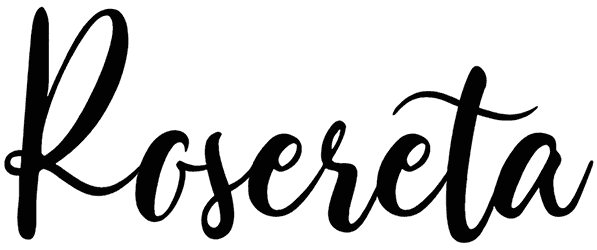
Rosereta Font
Rosereta is where the beauty and elegance of handmade calligraphy meet the modern expression of digital design. With each letter, this handwritten font brings to life letters with a unique character and style that no machine can replicate.
This romantic font without all numbers can be used for personal or professional purposes and adds an atmosphere of complexity and individuality. This is the best way to make your statement through invitations, greeting cards, or packaging.